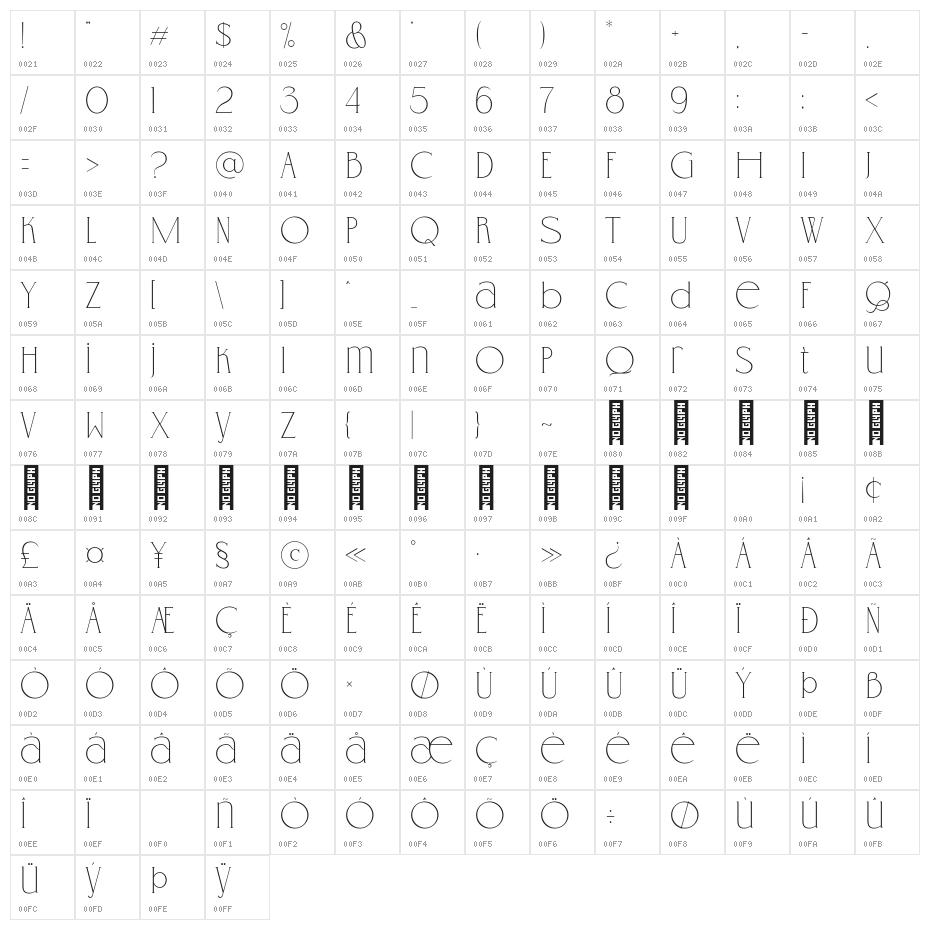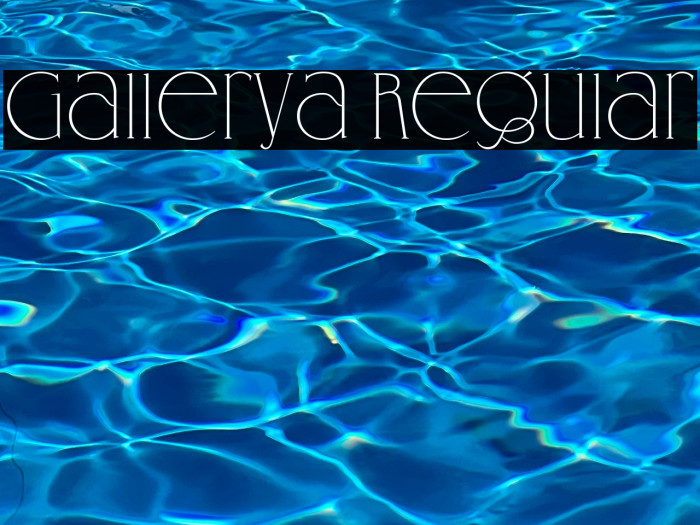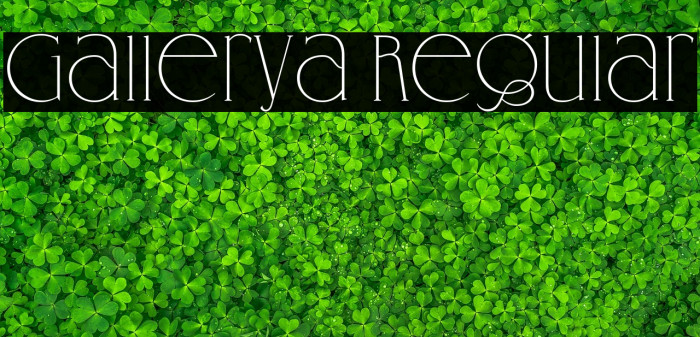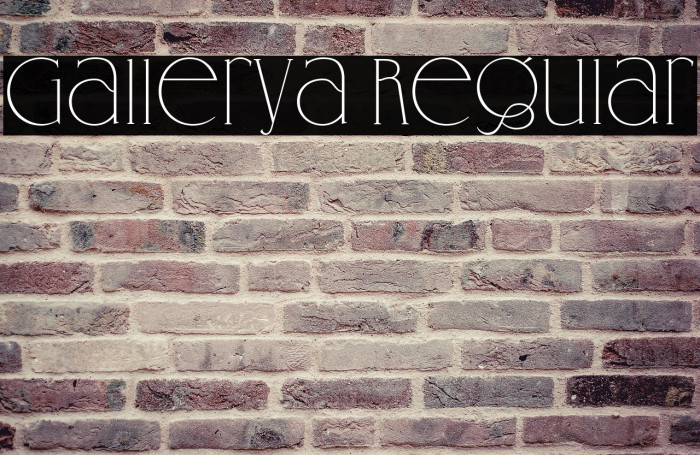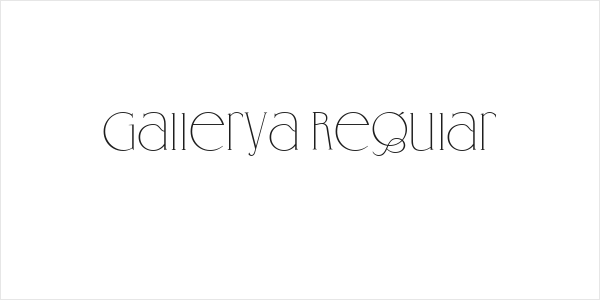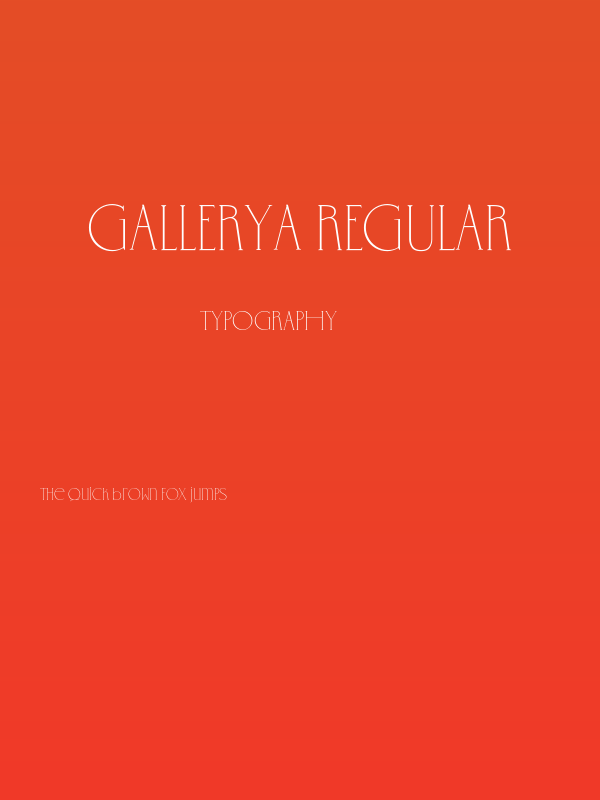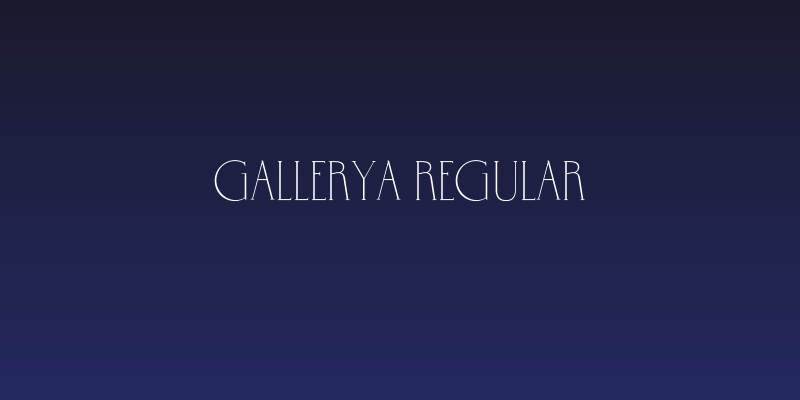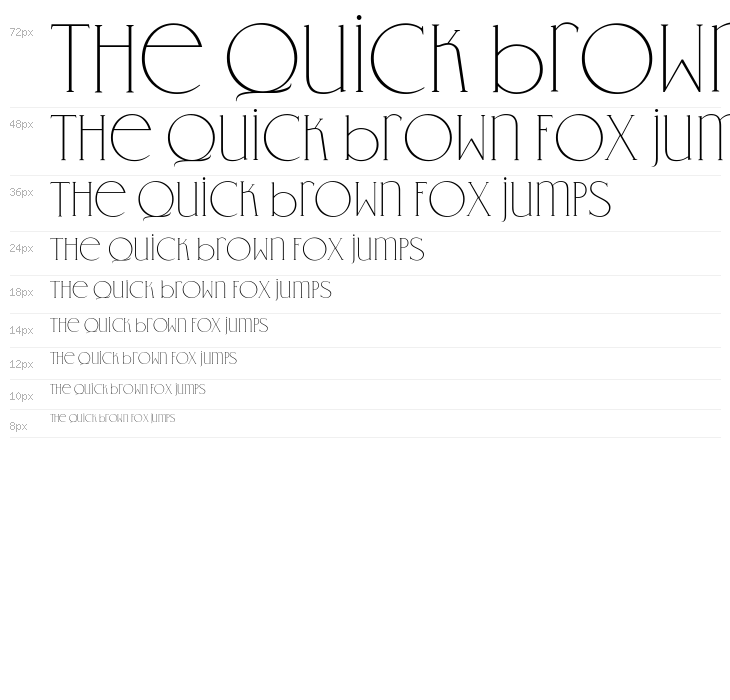
Gallerya Regular Font
Gallerya Regular Description
This font features a modern and elegant design with thin, elongated strokes and a high contrast between thick and thin lines. The characters are sleek and sophisticated, with a unique blend of geometric and organic shapes. The uppercase letters are tall and narrow, while the lowercase letters maintain a consistent style with rounded forms. The numerals are distinct and easy to read, complementing the overall aesthetic. Special characters are designed with the same attention to detail, making this font versatile for various applications.
| Use Case | Headlines, Logos, Editorial design |
| Proposed Projects | Ideal for luxury branding, editorial design, fashion magazines, and elegant invitations. |